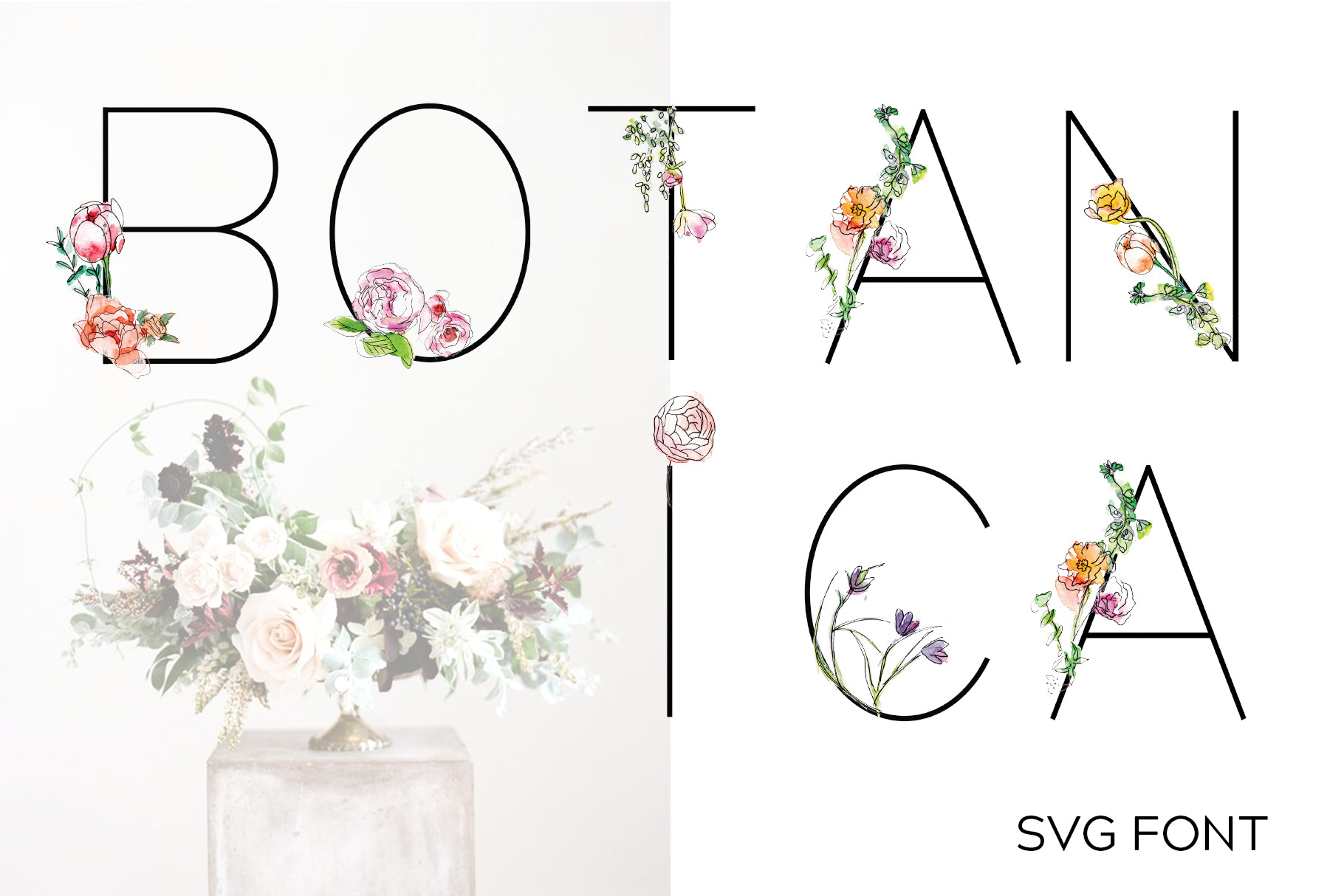
Flower Watercolor Font
Botanica Color Bitmap Font (SVG)
For those who love wearing flowers in your hair, a clean slim typeface is lightly embellished by a series of hand-painted watercolor flowers letter by letter with a spring palette, radiating a warm floral vibe wherever you may be.
Compiled in high resolution, whether it’s an invitation card, printed quote or a party banner, the font is crisp and clear as it is designed to be easily readable whilst embedded in floral ornaments. A handful of florets carefully picked for each alphabet is sure to add delight to your collection.